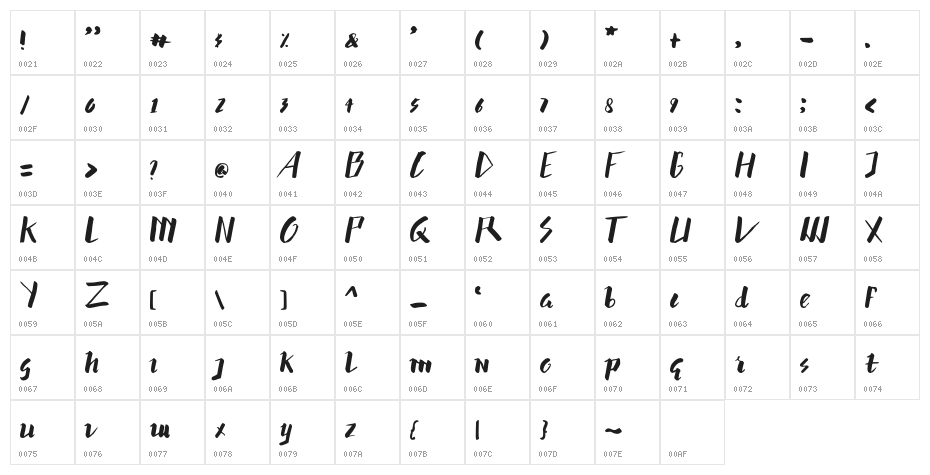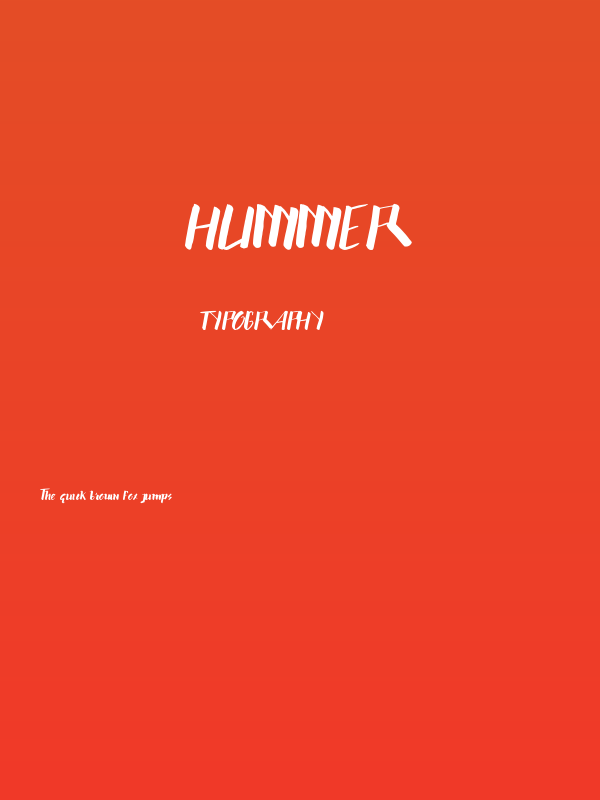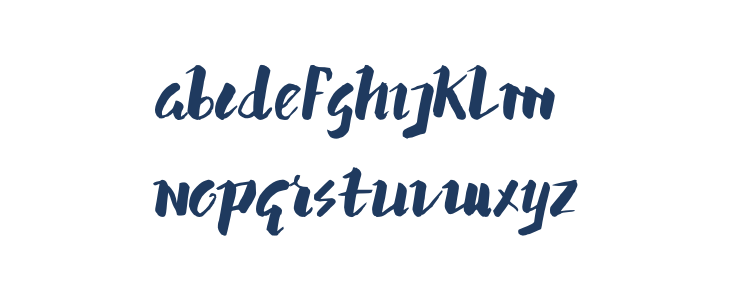
hummer Font
hummer Description
This font features a bold and dynamic script style, characterized by its sharp, angular strokes and a sense of movement. The uppercase letters are particularly striking, with a strong presence and a slightly aggressive flair. The lowercase letters maintain the same energetic style, offering a cohesive look throughout. Numbers and special characters are designed to match the overall aesthetic, ensuring consistency. The font's boldness and unique style make it stand out, suitable for projects that require a strong visual impact.
A bold, dynamic script font with sharp, angular strokes from Uncategorized fonts.
- Proposed Projects: Ideal for branding, posters, and headlines that need a strong, impactful presence.